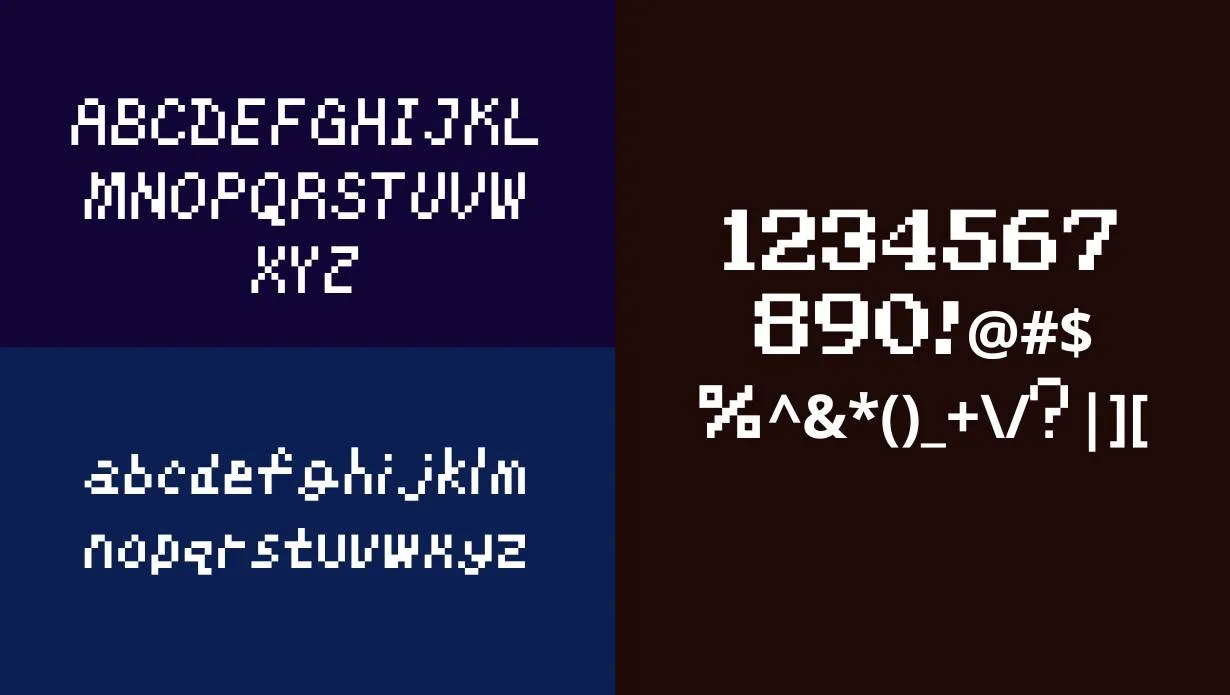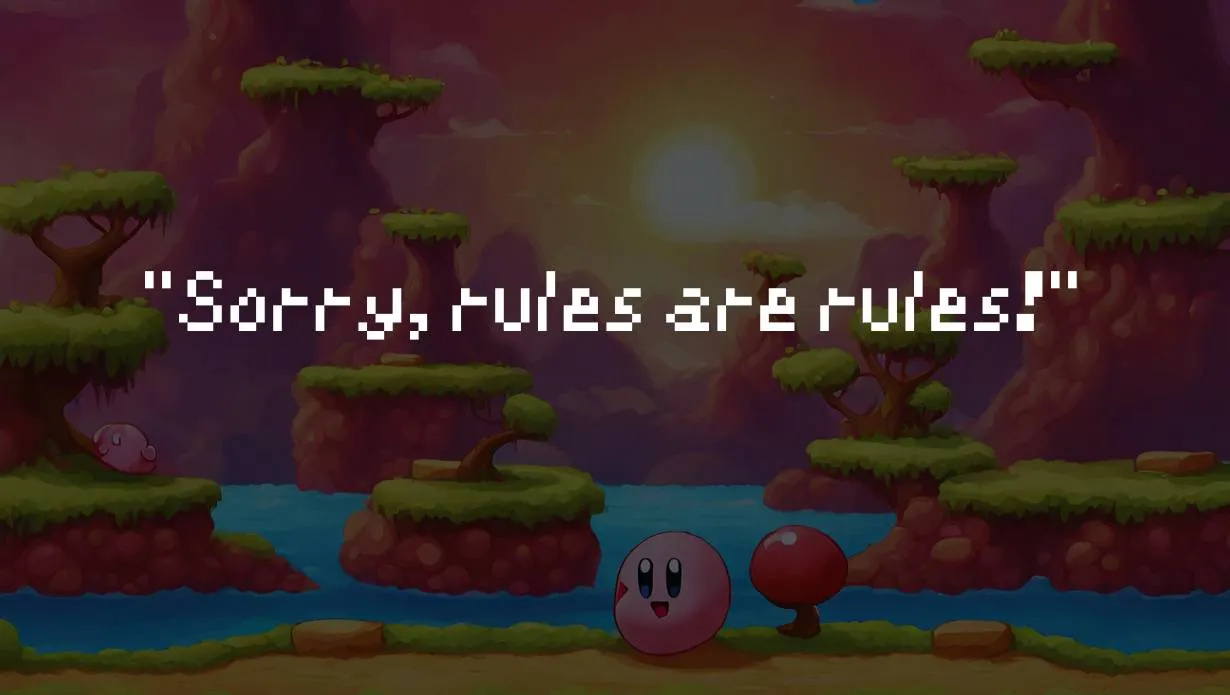
Kirbys Adventure Font is playful and reminiscent of retro video game typography. It’s a great choice for projects related to gaming, nostalgia, and creative designs that evoke a sense of fun and excitement.
The font’s unique style adds a touch of retro charm to your designs.